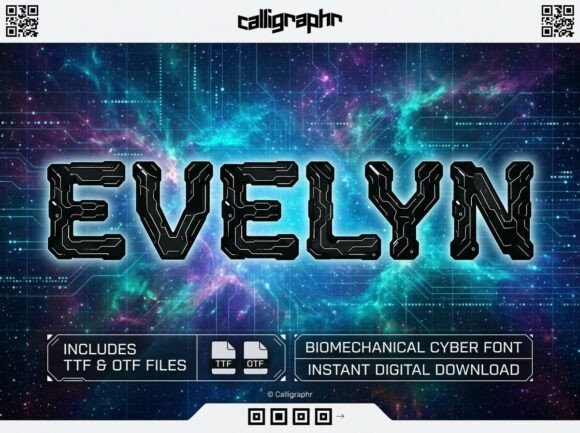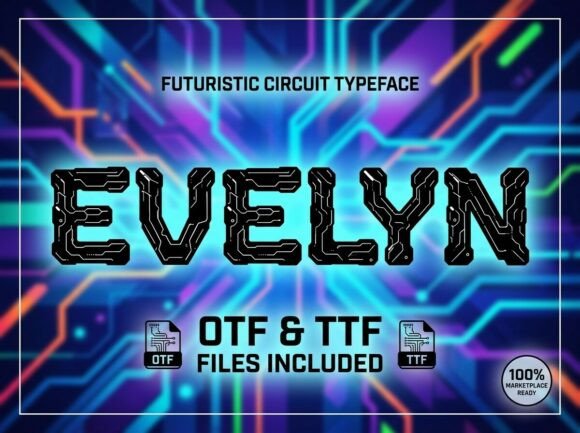
Evelyn Font: A Stunning Decorative Display Font for Creative Minds
Are you tired of using the same old fonts for your creative projects? Look no further than the Evelyn Font, a stunning decorative display font designed to make a statement. With its unique artistic elements and strong visual personality, this font is perfect for creators who want to break away from the ordinary and add a touch of elegance to their work.
What Makes Evelyn Font So Special?
Evelyn Font is a versatile decorative font that is perfect for bold headlines, artistic logos, and creative packaging. Its professional and polished finish makes it suitable for a wide range of applications, from branding and advertising to crafting and DIY projects. The font features a unique and artistic design that is sure to grab attention and leave a lasting impression.
Before purchasing Evelyn Font, please note that it is an ALL-CAPS (Uppercase Only) display typeface. This means it does not include lowercase letters. It is specifically designed for high-impact headlines, logos, and decorative initials where every letter is a work of art.
This unique design feature allows for a more artistic and creative approach to typography, making it perfect for projects where you want to make a bold statement.
Use Cases for Evelyn Font
Evelyn Font is perfect for a wide range of creative projects, including:
- Branding and Advertising: Create eye-catching logos, billboards, and ad campaigns that demand attention.
- Crafting and DIY Projects: Add a touch of elegance to your handmade crafts, such as jewelry, candles, and home decor.
- Packaging Design: Stand out on store shelves with unique and creative packaging that showcases your brand’s personality.
- Graphic Design: Use Evelyn Font to create stunning visual graphics, such as posters, flyers, and brochures.
Tips for Using Evelyn Font
To get the most out of Evelyn Font, here are some tips to keep in mind:
- Use it sparingly: Due to its bold and artistic design, Evelyn Font is best used sparingly to make a maximum impact.
- Experiment with colors and textures: Add an extra layer of creativity to your design by experimenting with different colors and textures.
- Pair it with a simple font: Balance out the boldness of Evelyn Font by pairing it with a simple font for body text.
Evelyn Font is a stunning decorative display font that is sure to elevate your creative projects to the next level. With its unique artistic elements, strong visual personality, and versatility, it’s perfect for creators who want to break away from the ordinary and add a touch of elegance to their work. So why wait? Get your hands on Evelyn Font today and start creating stunning visual graphics that demand attention!